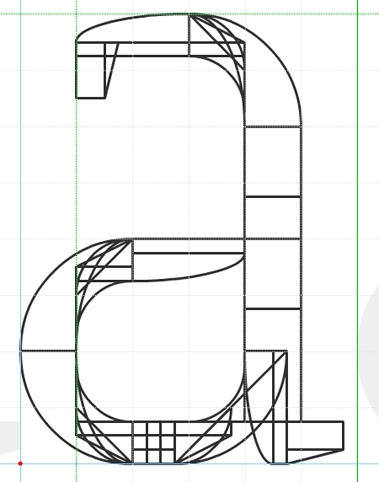
• I wanted to create a light serif typeface that is clear and readable and at the same time sort of elegant. Don't know whether I did all this, really...
Pretty! I like the subtle contrast. It reminds me a bit of SuperBrugsen's font, except Augustine is much more elegant. Just look at SuperBrugsen's ugly and inconsistent top serifs here: http://intersite.dk/Clubs/CommonDrive/Components/GetWWWFile.aspx?fileID=39448
I rate this a 10/10!
Very nice jo0b with the consistency.
Beautiful and very usable. Perhaps L is a tad wide. Excellent work... once again. 10/10
Some of the characters you see are no longer the same in the current version, though...
Congratulations! FontStruct Staff have deemed your FontStruction worthy of special mention. “Augustine” is now a Top Pick.
Great video by the way!
You have succeeded in creating a clear, light and readable face.
Excellent video - it displays the creativity and patience required for this type of design.
Wow! Such a consistent, legible, and downright beautiful typeface! Every glyph looks perfectly in its place.
May I suggest adding slight curves to the inside of terminals on letters like C, S and a? To me, these letters look a tiny bit "dry" without them. Of course, it depends on what you think would be best.
Great to see follow your process in the video and what a beautifully crafted font!
I adjusted the L and the ð.
@ETHproductions: I'd rather let the terminals stay like they are, I hope you understand.
What a beauuuty! My 10 is for you, as usual. BTW I want to propose you another way to make the "a". What do you think about it?
again another great font in your portfolio
Ooooh...
So nice. Love it!
I'm curious how you do those smooth curves spannung several blocks! I guess there are still some functions to learn; is there an advanced tutorial on how to do these?
Comment by unci 19th june 2015
@elmoyenique Interesting proposal. I think that it looks slightly more bulky and thus fits less into the overall character of the typeface.
@unci You can span bricks over more that one grid element by switching on the Expert Mode (upper right in the FontStructor) and then going to Menu > View > Filters. I usually set the Brick Size to 2 in both directions but of course everyone is free to play around with that. Hope that helped.
Beautiful font! 10/10